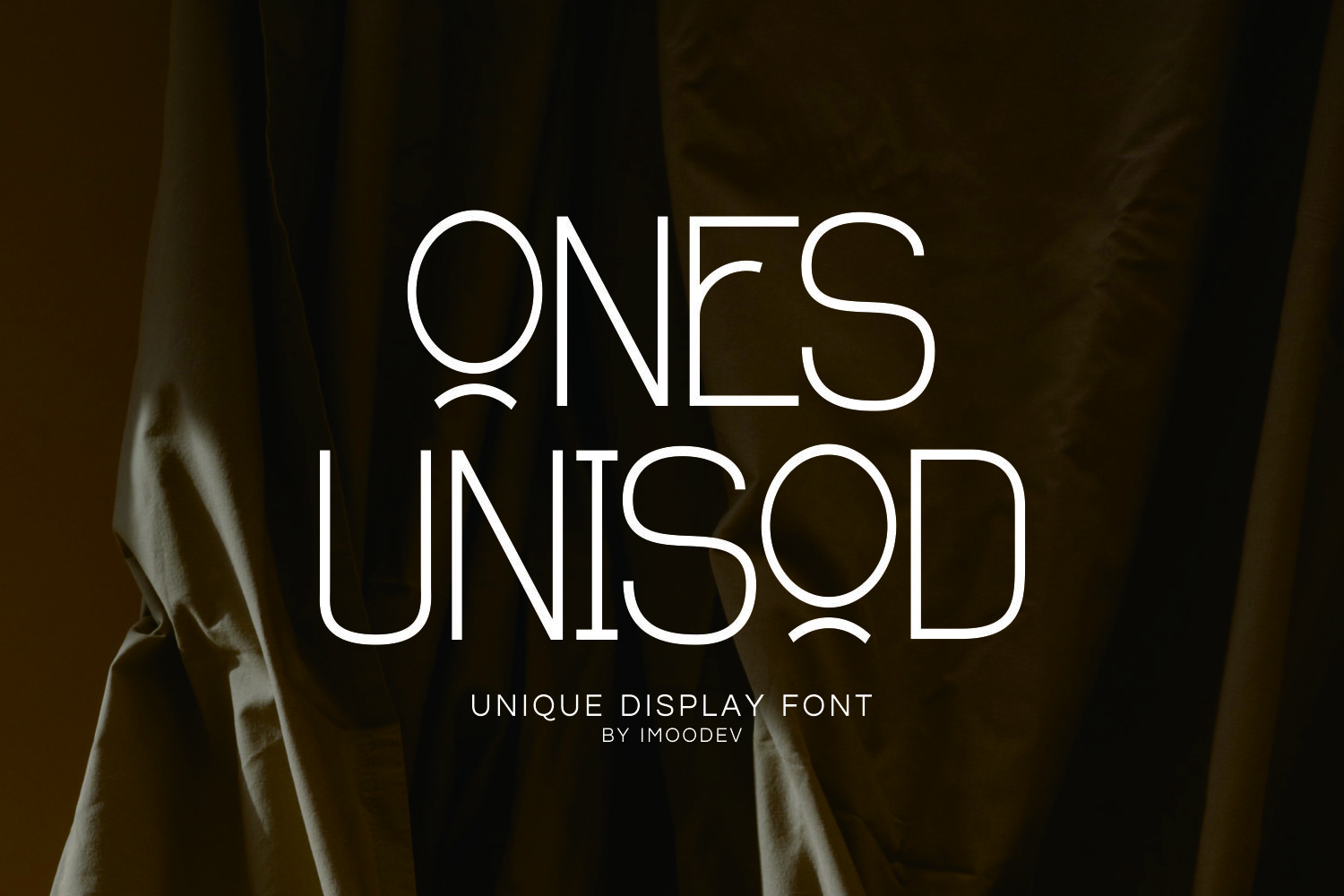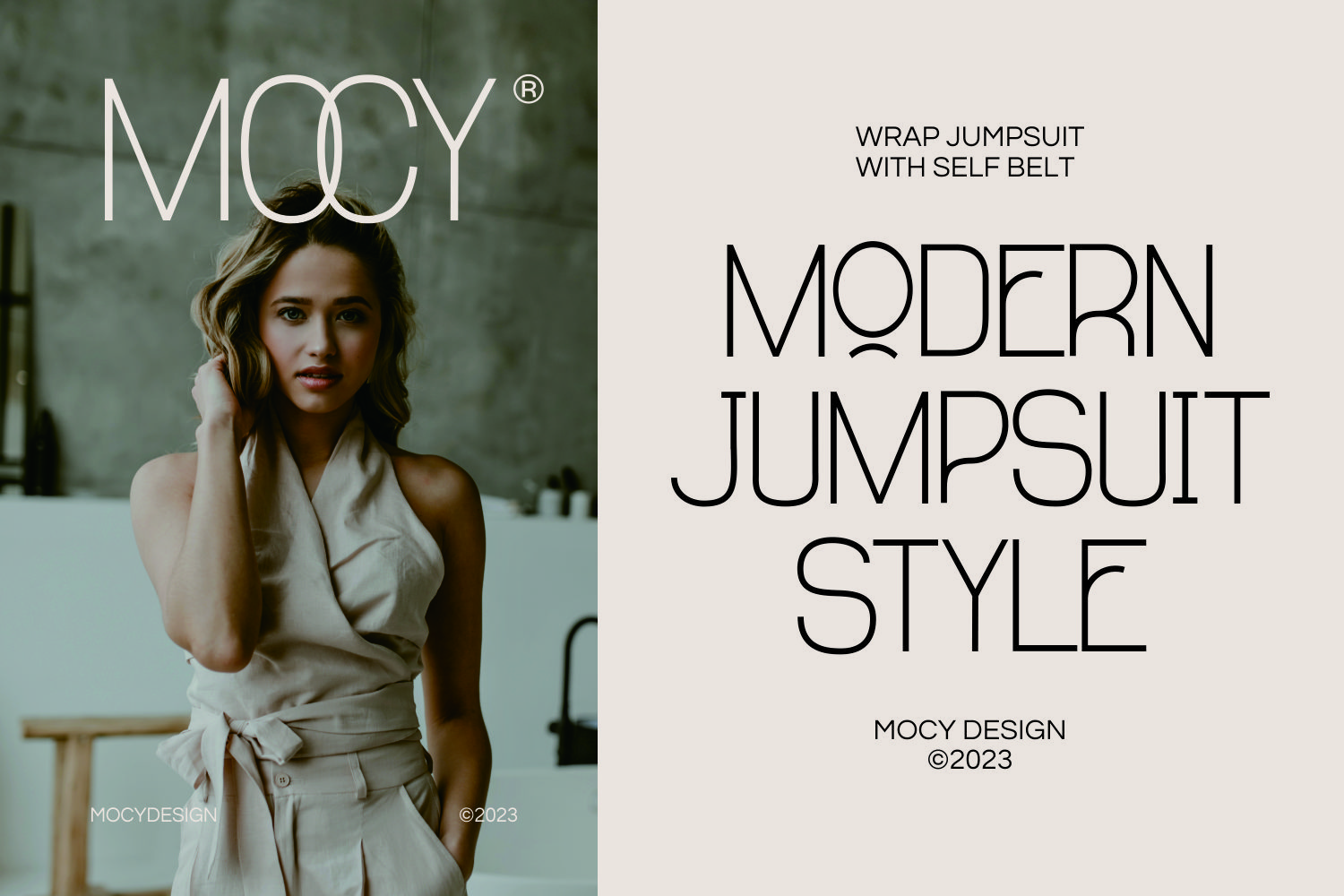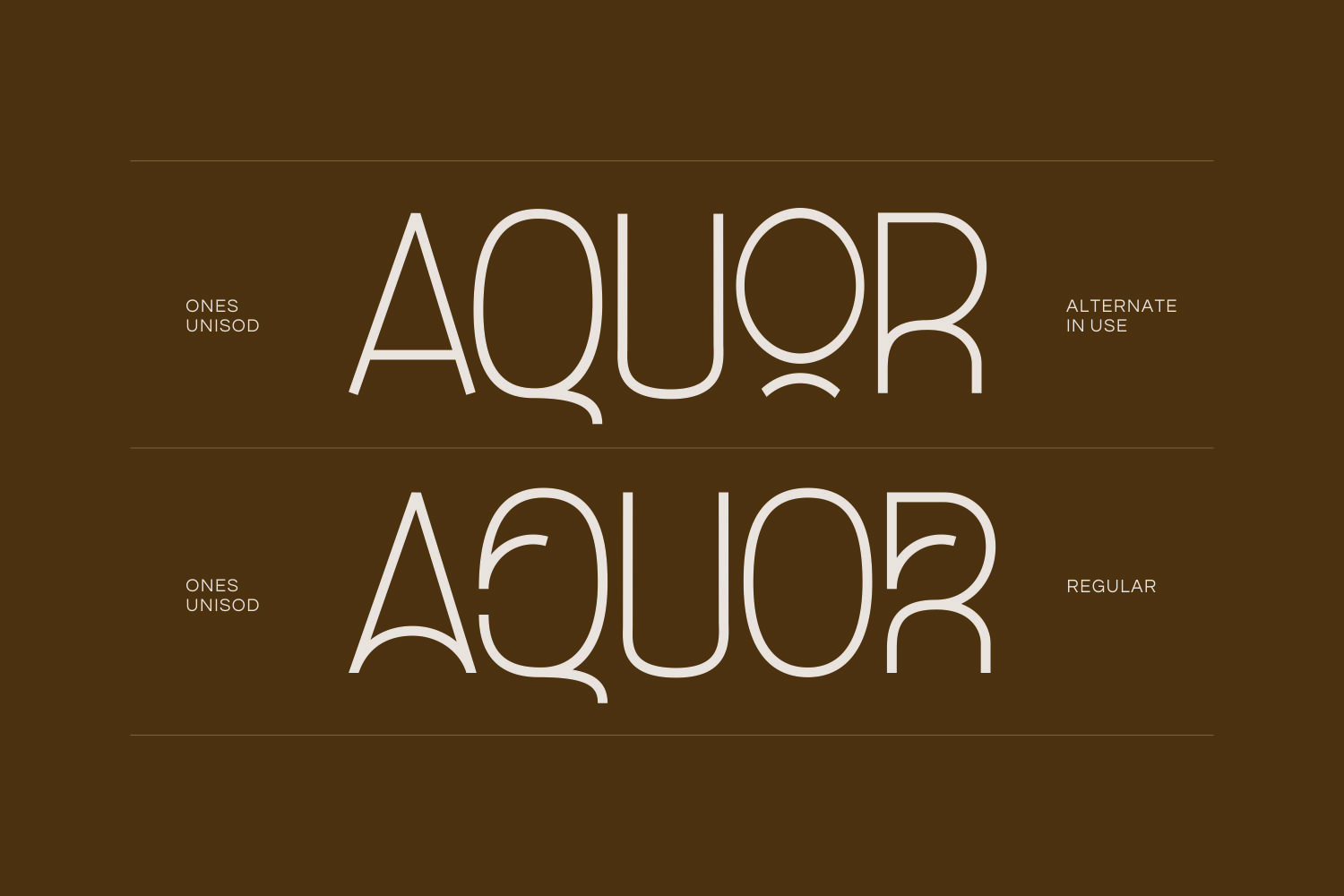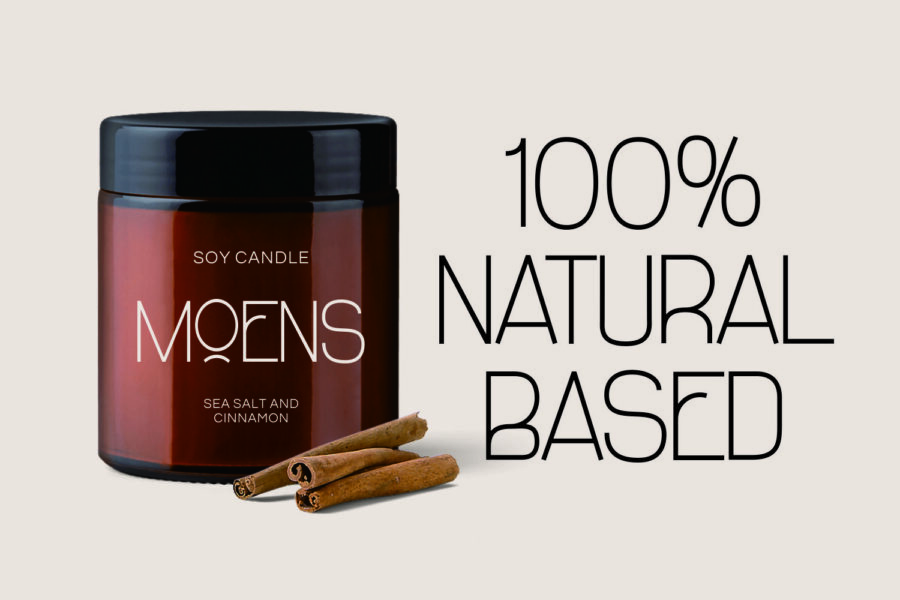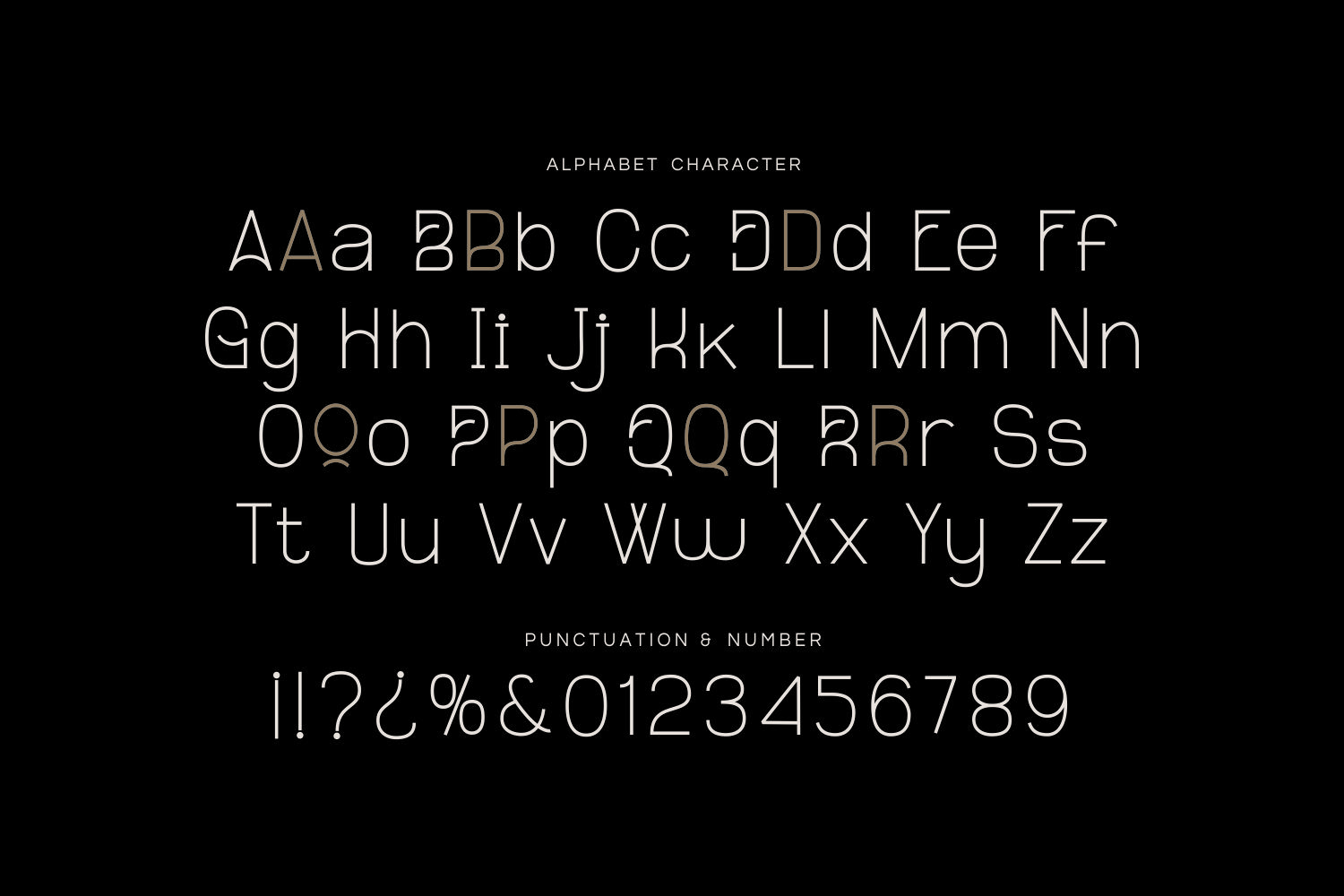
Ones Unisod
Ones Unisod is a unique display font that combines sleek modern lines with experimental letterforms. Its geometric construction and minimalistic style create a futuristic yet elegant feel, making it ideal for high-end branding, fashion editorials, product packaging, and creative advertising. With distinctive alternate characters and creative shapes, this font delivers a striking visual identity that feels both sophisticated and innovative.
Designed to stand out, Ones Unisod is perfect for logos, posters, magazine layouts, and luxury product labels. Its clean structure and artistic alternates allow designers to play with composition and achieve bold, stylish typography. Whether for modern branding or cutting-edge campaigns, this font ensures your design communicates with confidence and contemporary flair.